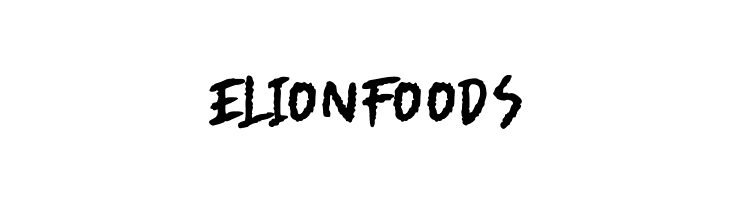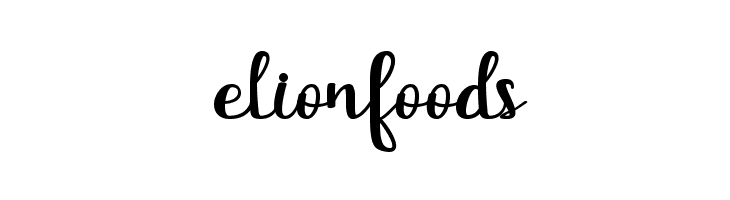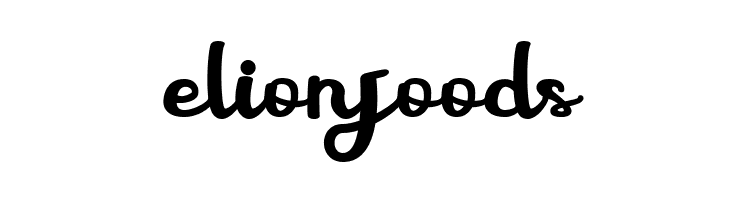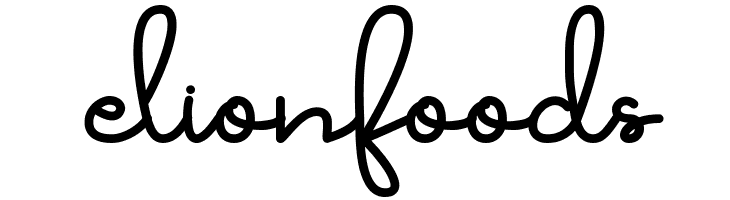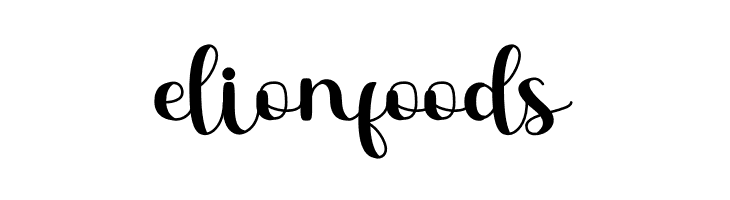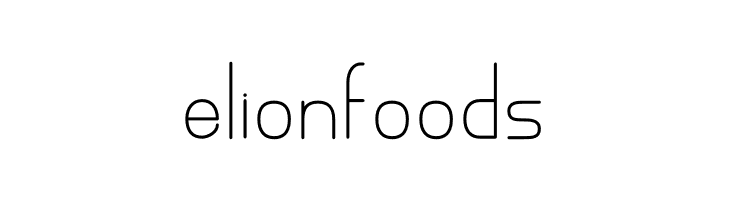
A bold, hand-drawn font with thick, textured strokes and an energetic style.
A graceful and elegant script font with flowing, cursive letterforms.
A graceful and flowing script font with elegant, connected letters.
A delicate, flowing script font with elegant, continuous strokes.
A modern sans-serif font with a clean and playful style.
A playful and elegant script font with bold, flowing characters.
A playful, bold handwritten font with smooth curves and a casual style.
A playful, handwritten font with a casual, flowing script style.
A playful, whimsical font with flowing, cursive-like strokes and dynamic shapes.
A modern, geometric font with thin strokes and a clean design.